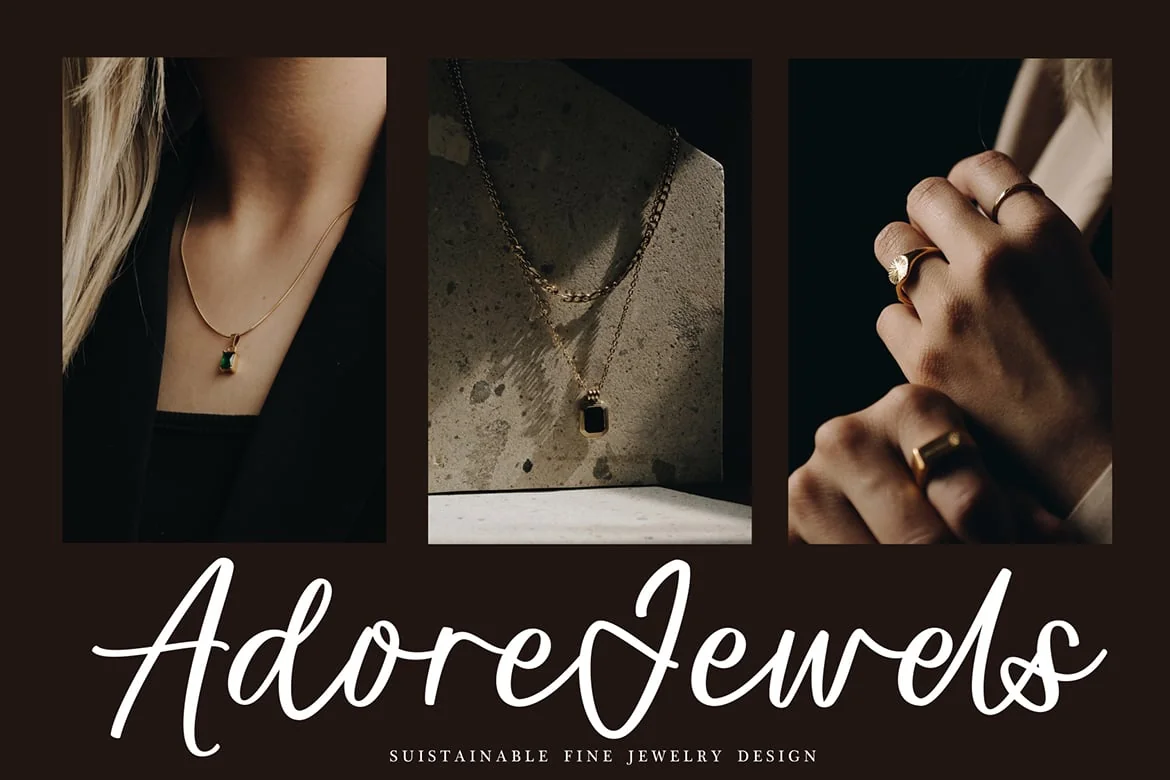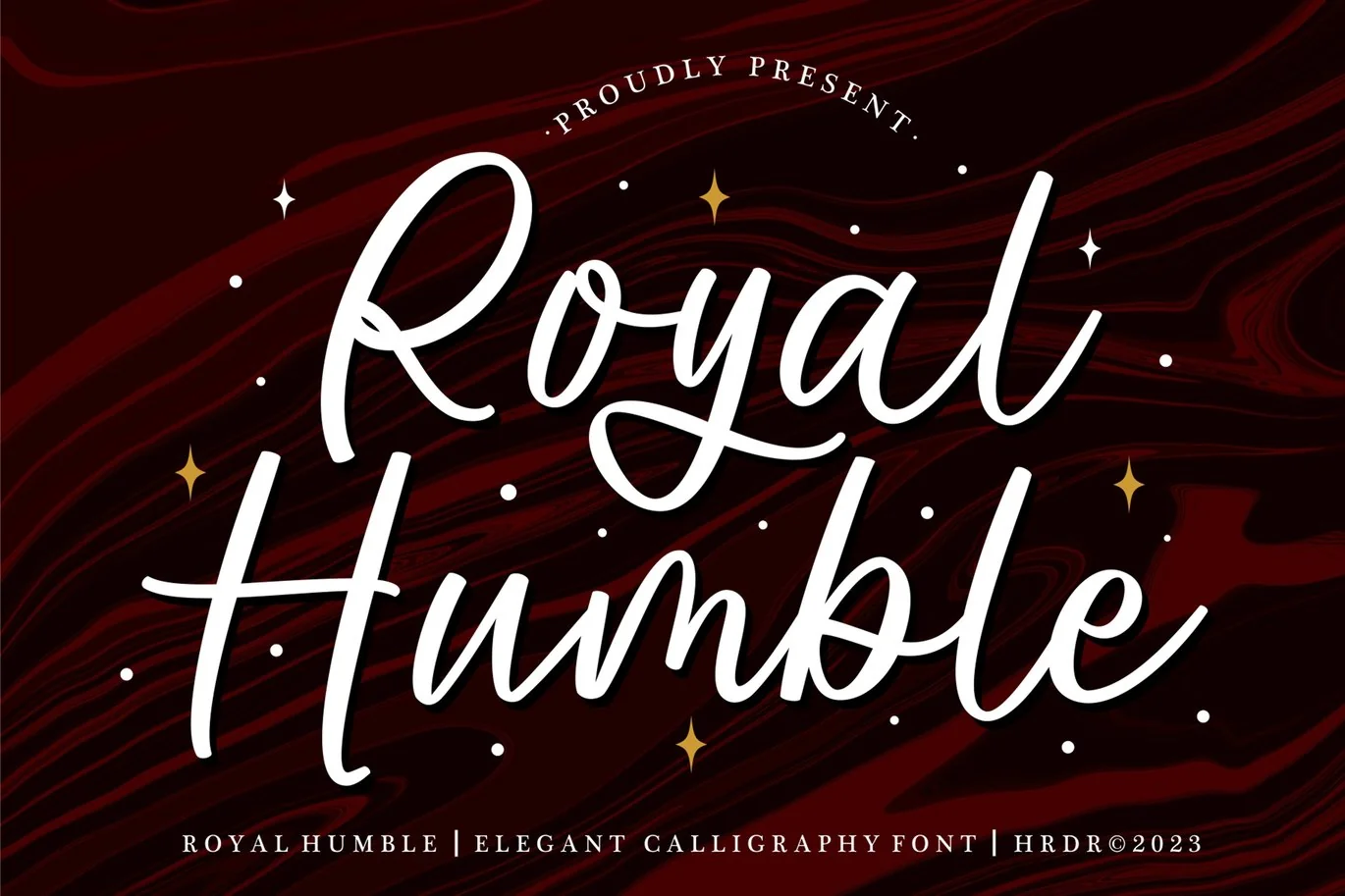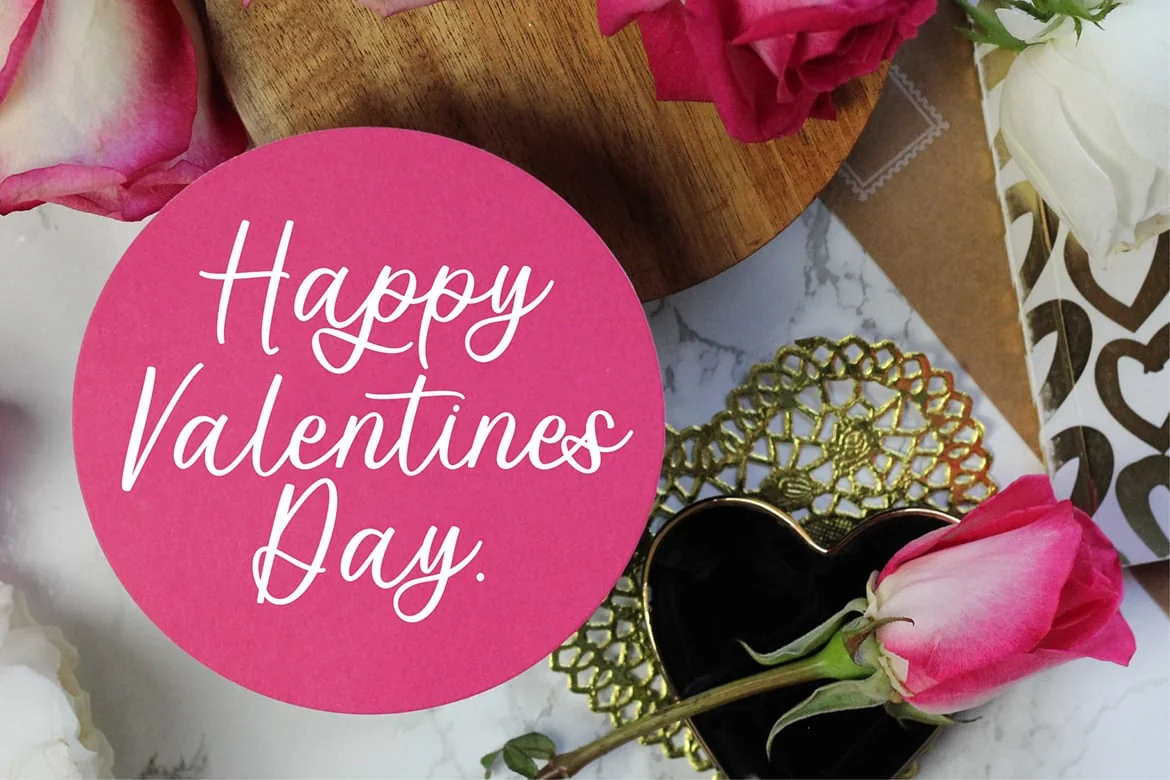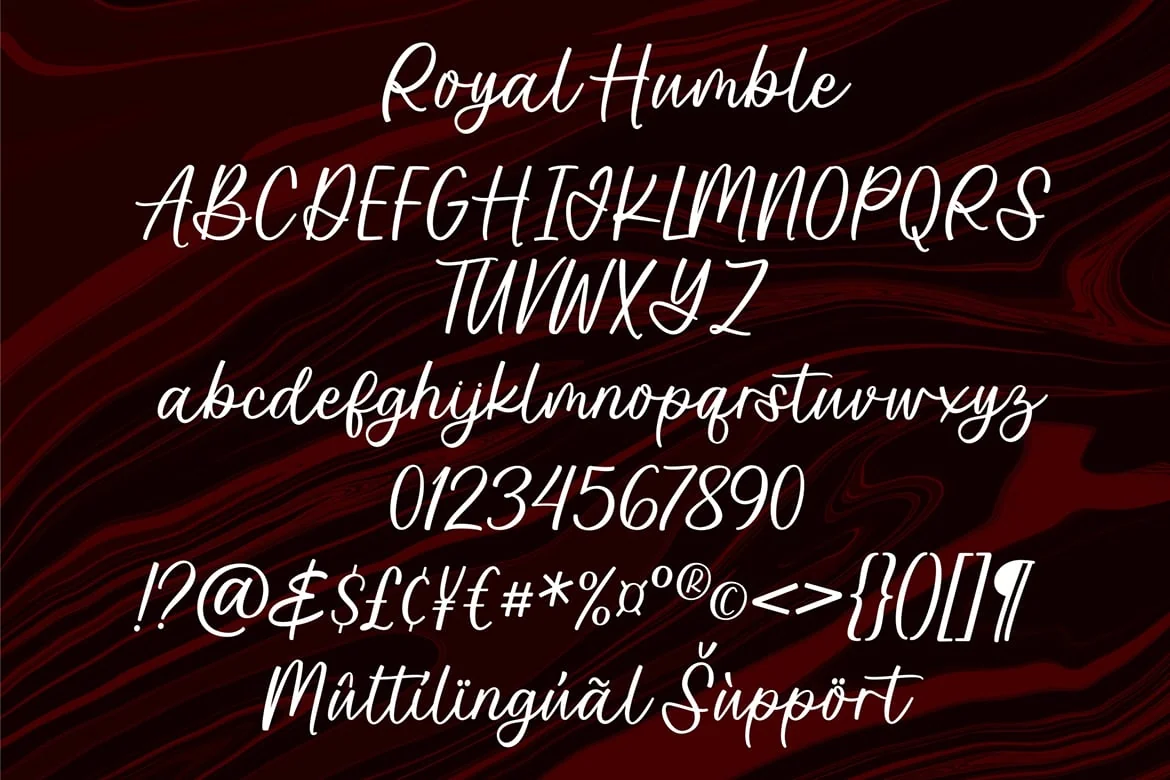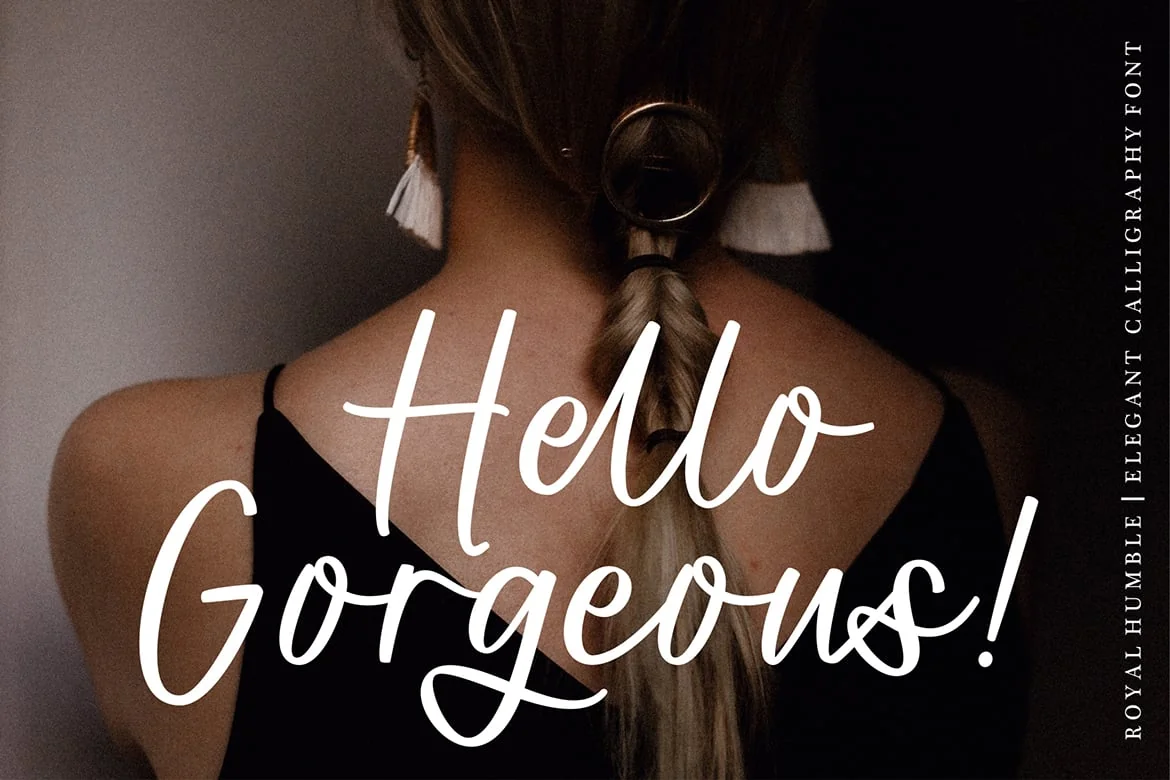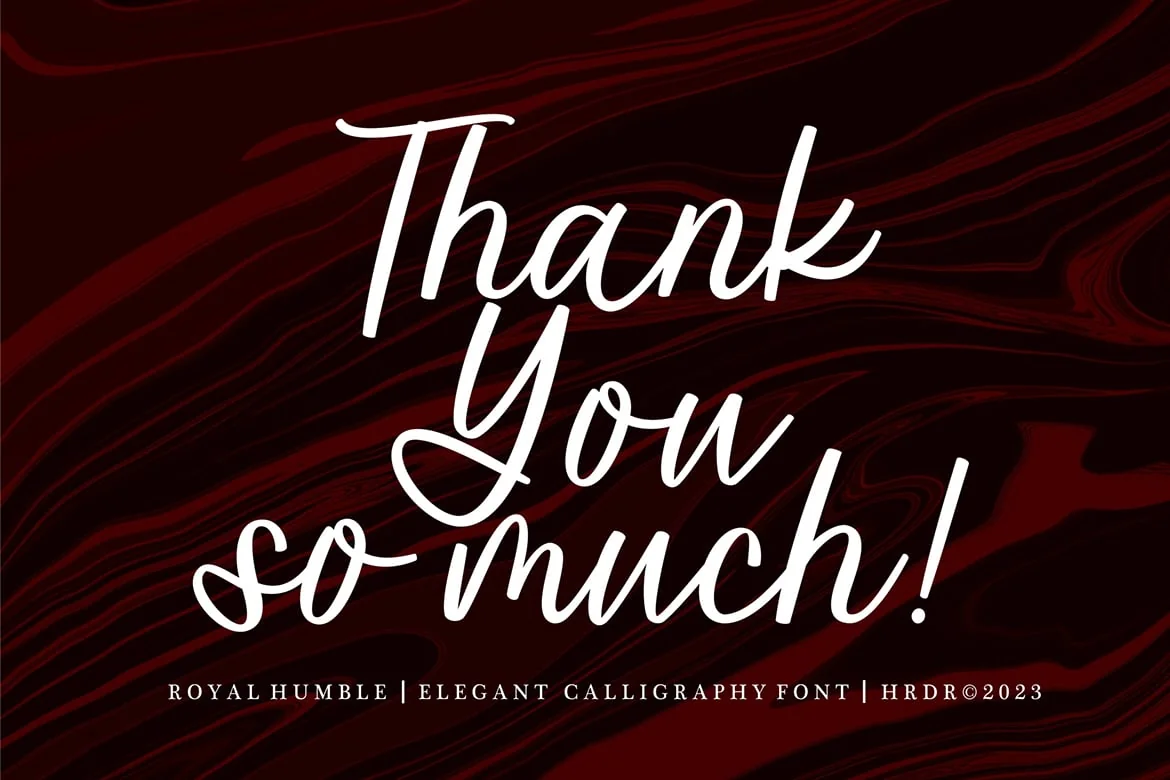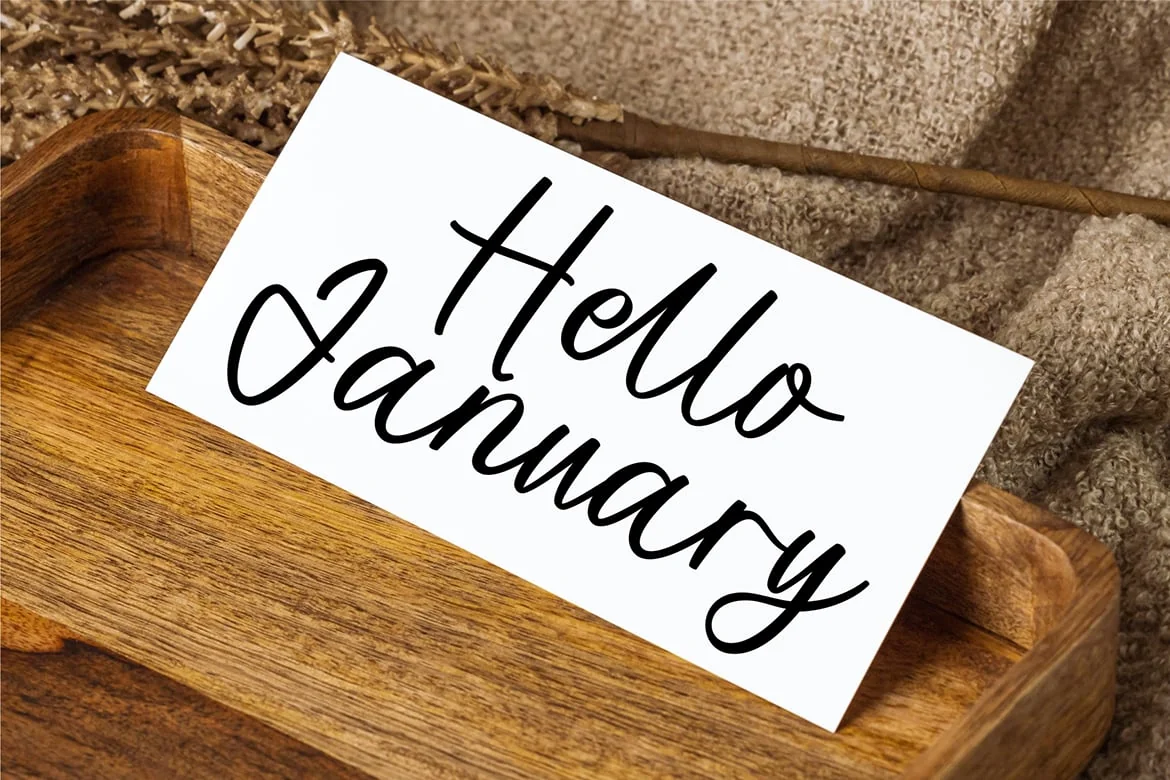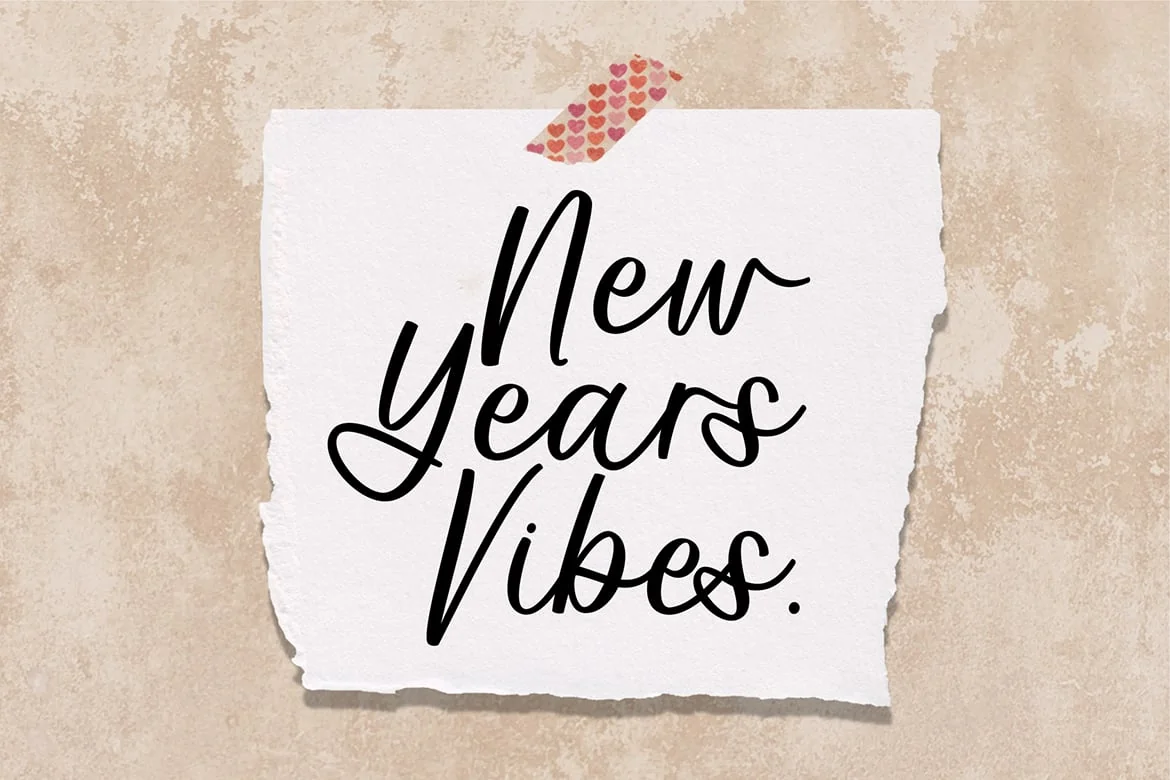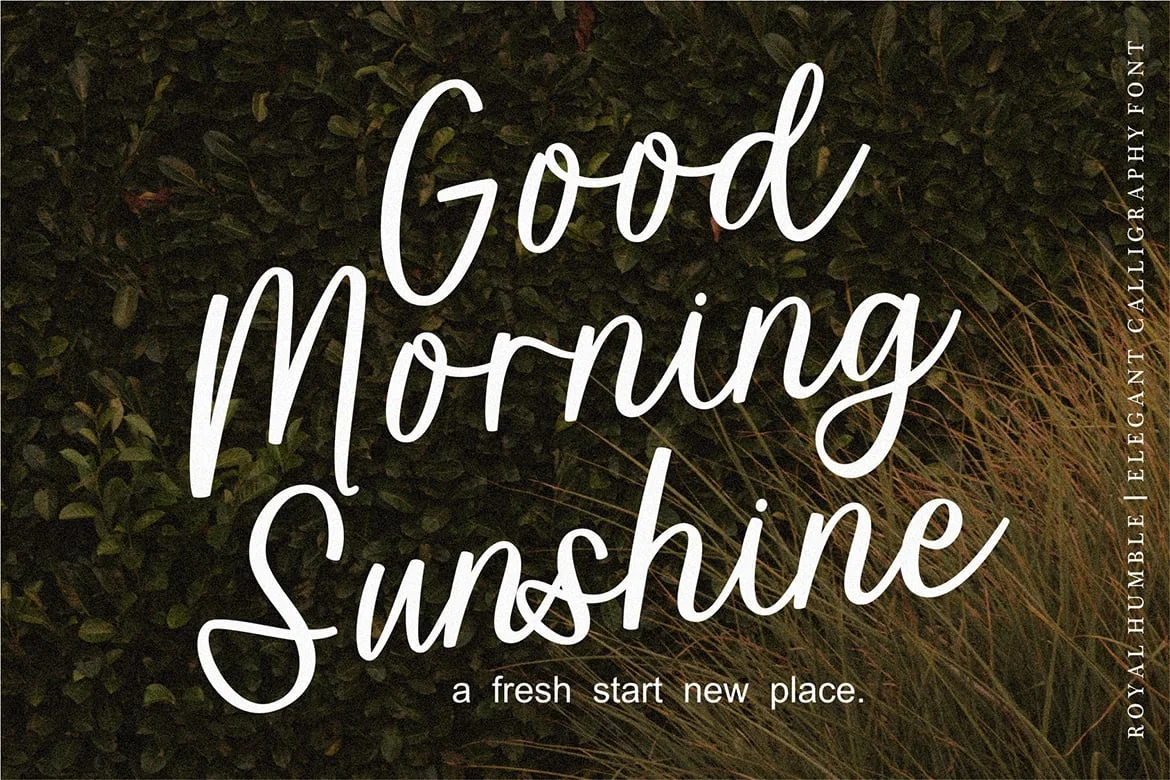
Royal Humble – Elegant Calligraphy Font
Royal Humble Font is a modern and Elegant Calligraphy font.
It’s perfect for branding, wedding invitations, photography, Neon Sign, bloggers, logos, greeting cards, Logo, Quotes and
more.
Font Features :
- numeric & Multilingual support